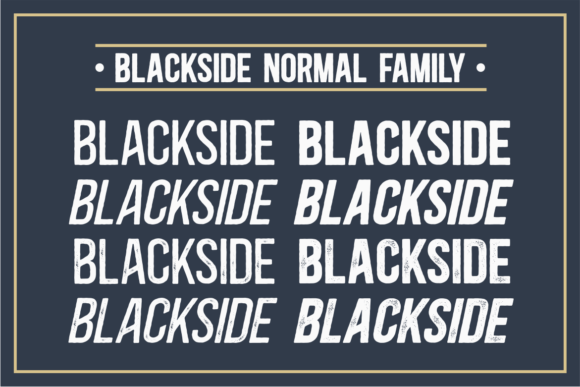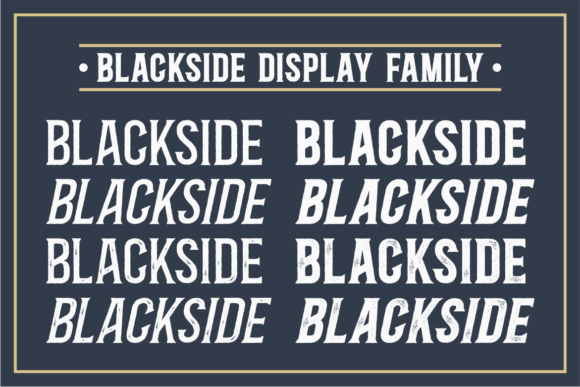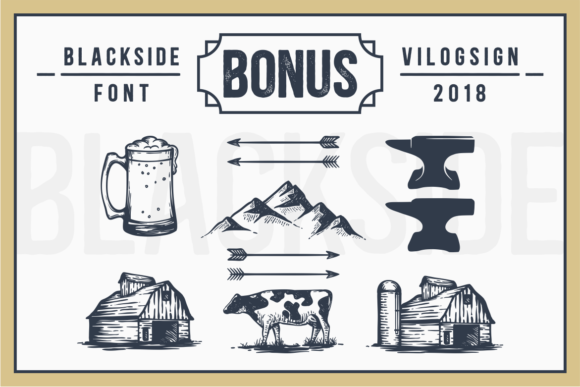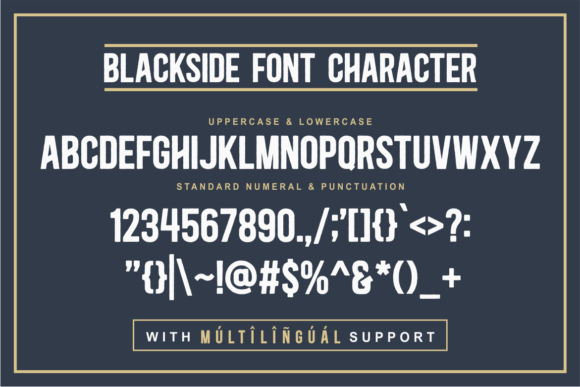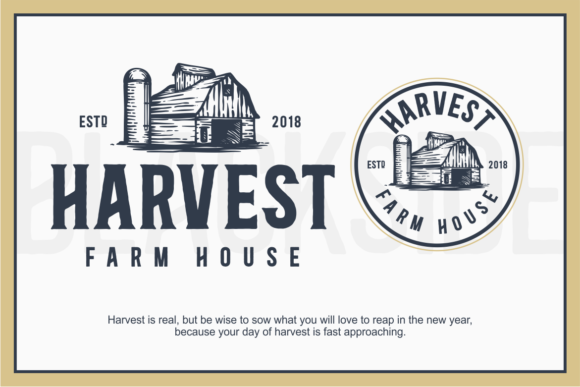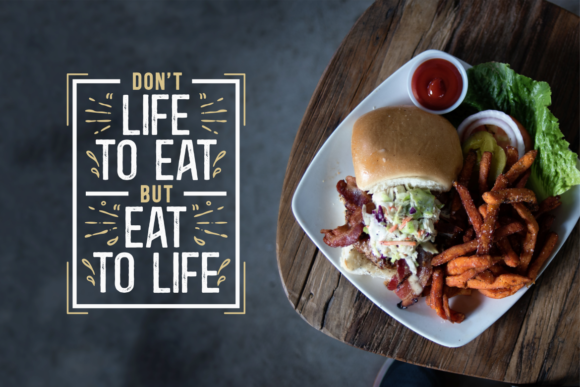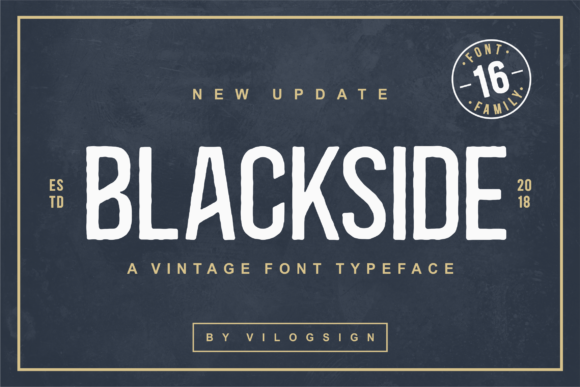
Introducing Blackside Font: The Perfect Vintage Touch for Your Designs
Are you looking for a font that adds a touch of nostalgia and natural feel to your designs? Look no further than the Blackside Font. This vintage font family is perfect for designers and crafters who want to give their logos, labels, banners, posters, and other designs a unique and rustic touch.
The Characteristics of Blackside Font
The Blackside Font is a carefully crafted font family that boasts a round and rough texture, giving it a natural and earthy feel. The font’s unique characteristics make it perfect for designs that require a vintage or rustic touch. The font’s rounded edges and rough texture give it a handmade feel, making it perfect for designs that need a personal touch.
What Makes Blackside Font Special?
So, what sets the Blackside Font apart from other fonts? Here are a few reasons why designers and crafters love this font:
• Natural Feel: The Blackside Font has a natural feel that makes it perfect for designs that require a rustic or vintage touch.
• Versatility: This font family is perfect for a wide range of designs, including logos, labels, banners, posters, and more.
• Unique Texture: The font’s round and rough texture gives it a unique and eye-catching appearance.
• Fun Elements: As a bonus, the Blackside Font comes with fun elements that can add an extra touch of personality to your designs.
Uses for Blackside Font
The Blackside Font is a versatile font family that can be used for a wide range of designs. Here are a few ideas to get you started:
• Logos: The Blackside Font is perfect for logos that require a natural and rustic touch.
• Labels: Use the Blackside Font to create labels that have a vintage or handmade feel.
• Banners: The font’s unique texture makes it perfect for banners that require a bold and eye-catching appearance.
• Posters: The Blackside Font is perfect for posters that require a vintage or rustic touch.
Tips for Using Blackside Font
Here are a few tips for using the Blackside Font in your designs:
• Experiment with Sizes: The Blackside Font looks great in a variety of sizes, so don’t be afraid to experiment to find the perfect size for your design.
• Pair with Other Fonts: The Blackside Font pairs well with other fonts, so try pairing it with a sans-serif font for a bold and eye-catching appearance.
• Use the Fun Elements: Don’t forget to use the fun elements that come with the Blackside Font to add an extra touch of personality to your designs.
The Blackside Font is a unique and versatile font family that is perfect for designers and crafters who want to add a touch of nostalgia and natural feel to their designs. With its round and rough texture, natural feel, and fun elements, this font family is sure to become a favorite in your design arsenal. So why wait? Download the Blackside Font today and start creating designs that have a vintage and rustic touch.